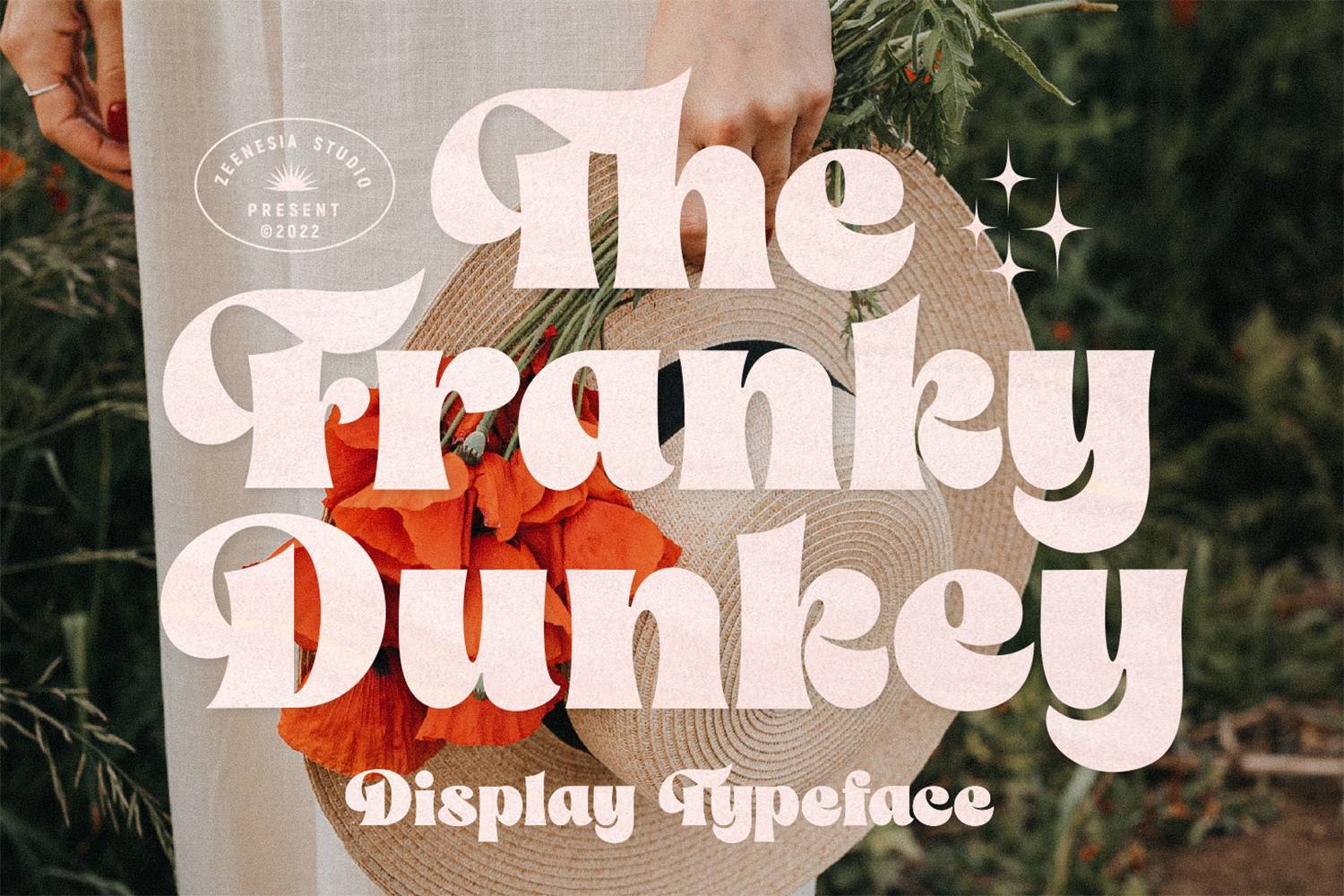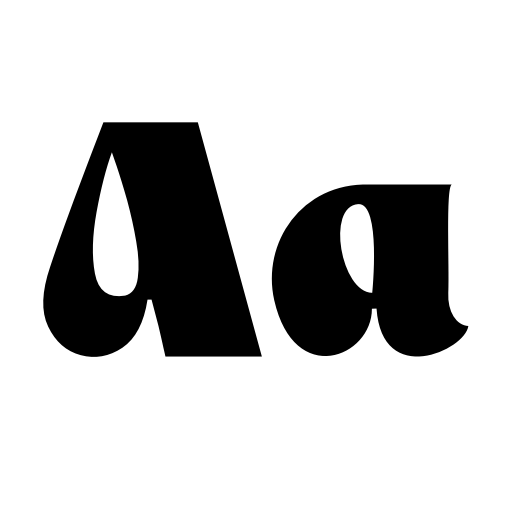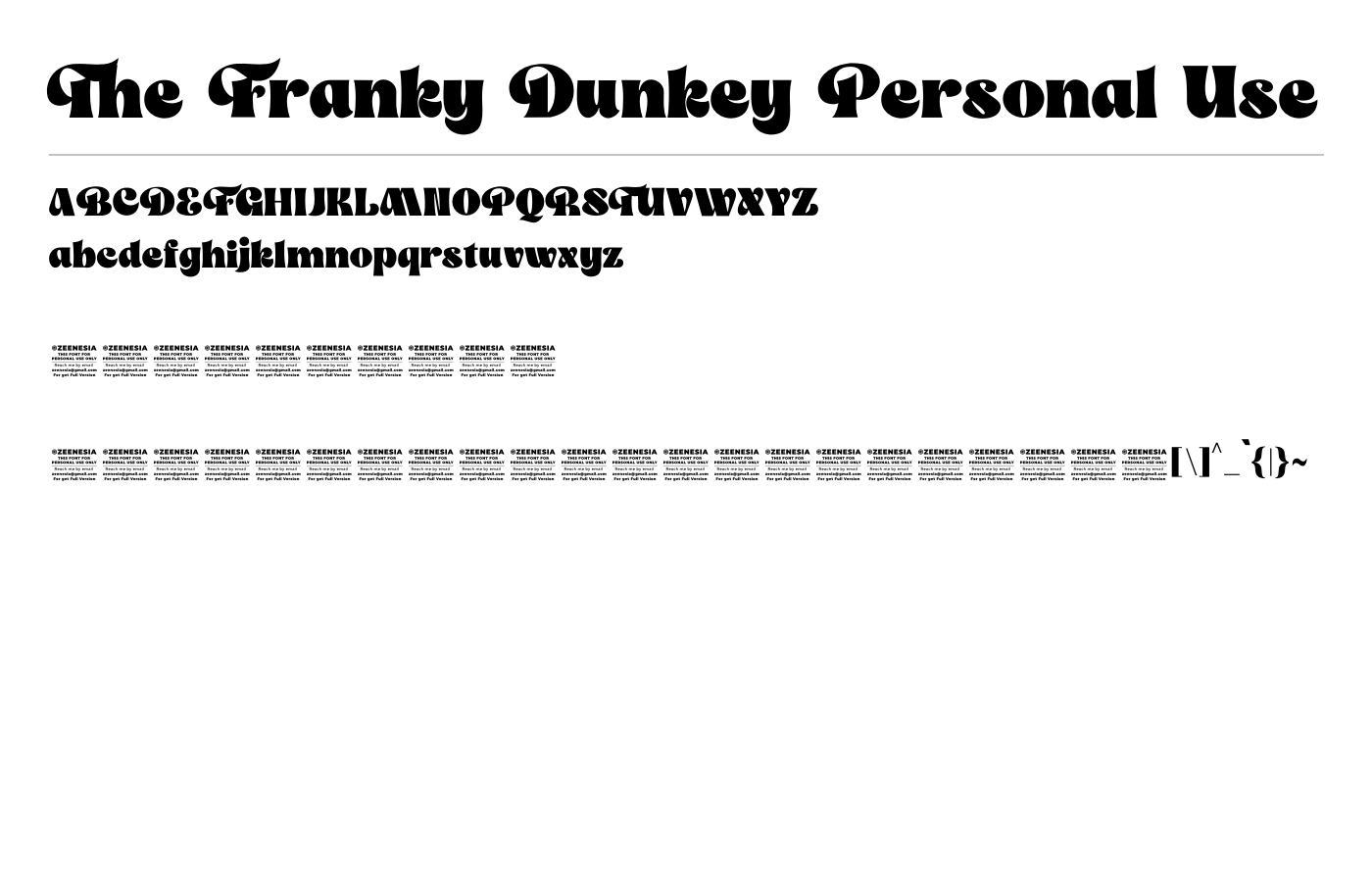
The Franky Dunkey font is a bold, playful serif typeface characterized by thick, chunky strokes and unique, whimsical letterforms that add a fun and quirky personality. Its strong presence and creative curves make it ideal for eye-catching headlines, logos, and branding that seek a lively and informal tone. This font works best in designs aiming for a cheerful, retro-inspired vibe, perfect for invitations, posters, and any project needing a distinctive, friendly touch.
The Franky Dunkey Font
About The Franky Dunkey Font
| Font family | The Franky Dunkey Font |
| Designer | © Zeenesia 2022 |